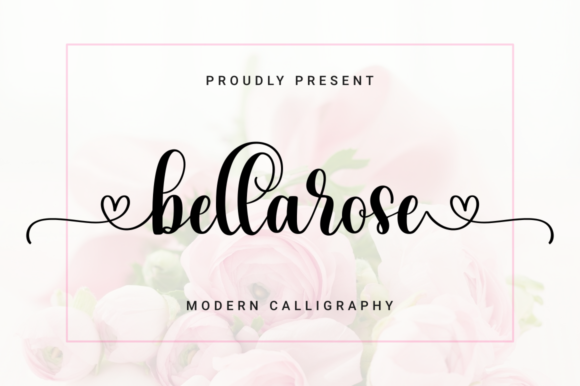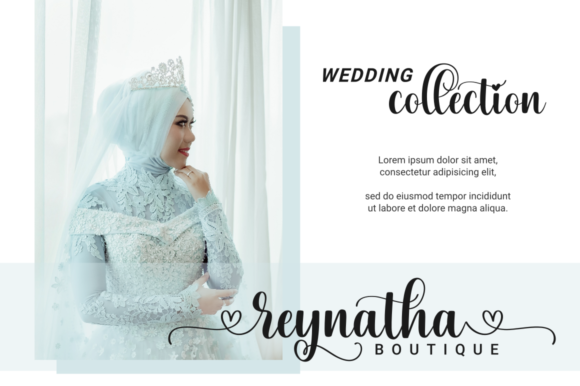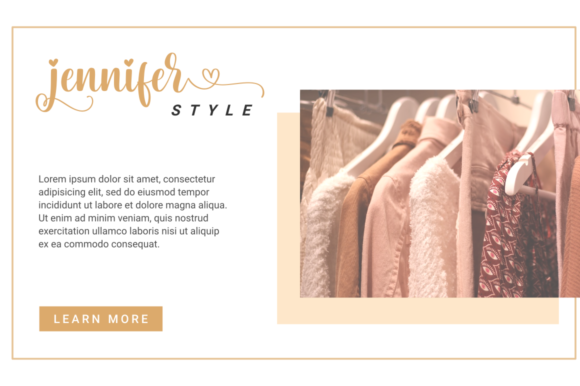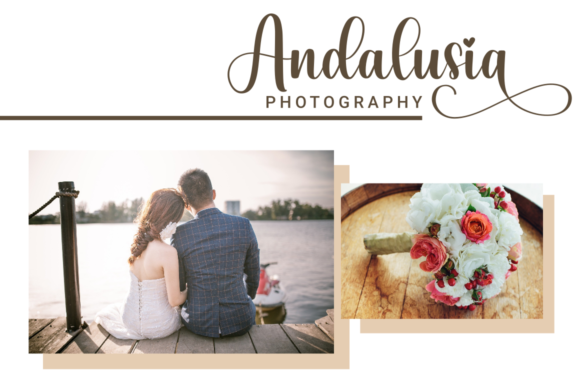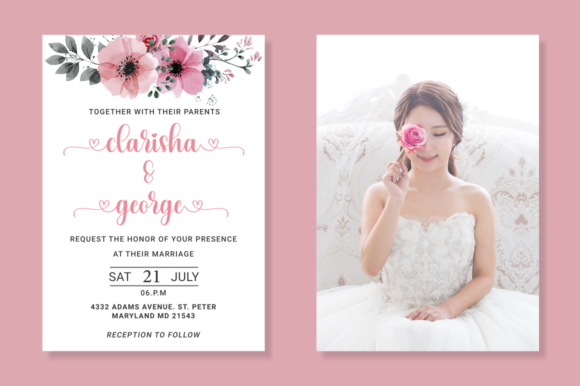
Bellarose Font
About Bellarose Font
Bellarose is a sweet and romantic handwritten font. It is PUA encoded which means you can access all of the glyphs and swashes with ease! It features a varying baseline, smooth lines, gorgeous glyphs and stunning alternates.Whether you’re looking for fonts for Instagram or calligraphy scripts for DIY projects, Bellarose will turn any creative idea into a true piece of art!